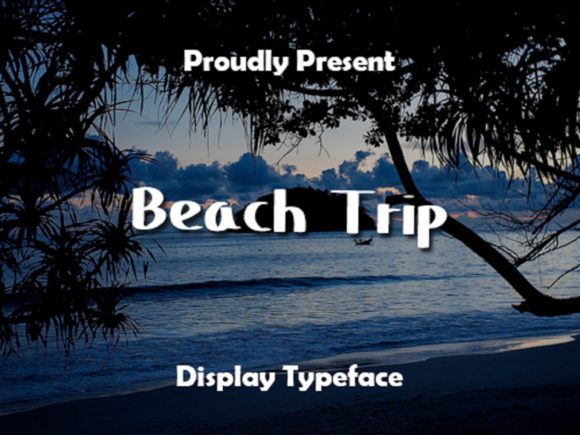
Prepare yourself to dive into a typographical utopia with Beach Trip Font, the display font that will add a splash of coastal charm to your designs. Picture yourself strolling along a sandy beach, feeling the gentle breeze caress your face as the sound of crashing waves fills your ears. Beach Trip Font captures that same sense of tranquility and freedom, inviting you to escape the mundane and embark on a creative journey.
This font is not just visually appealing; it's a versatile workhorse that can transform any project into a masterpiece. Whether you're designing posters, flyers, prints, or even logos, Beach Trip Font will elevate your creations with its unique and eye-catching style. It's the perfect choice for those who dare to be different, who want their designs to stand out from the crowd.
With Beach Trip Font, you have a font that's not just a collection of characters; it's an expression of your creativity, a reflection of your unique style. It's a font that will take you on an adventure, inspiring you to create designs that are as unforgettable as a day spent at the beach.
So, dive in, embrace the coastal vibes, and let Beach Trip Font be your guide to typographic excellence. Experience the endless possibilities that await you and create designs that will leave a lasting impression. Beach Trip Font: Your passport to creative freedom.